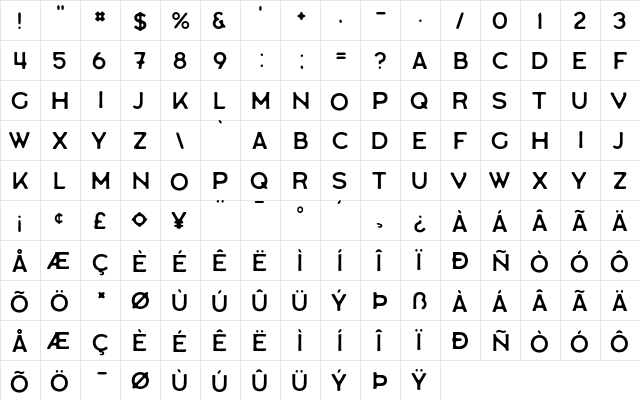
Labor Union Small
| Designer | McLetters |
Design Context for Labor Union Typeface
Labor Union offers clean, dependable letterforms without strong stylistic allegiance, making it a practical choice for designers who need flexibility.